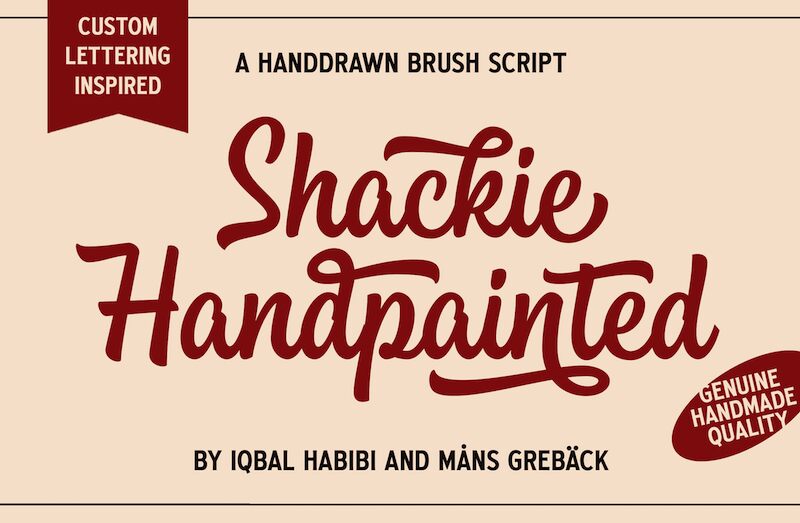
Shackie Handpainted PERSONAL Regular
Shackie Handpainted is a charming handwritten font designed by Mans Greback. Its playful style and imperfect lines give it a warm, welcoming feel that's perfect for projects that need a personal touch. The semi-bold font and wide width make it easy to read, while the handcrafted look adds character and personality. Shackie Handpainted would be great for anything from greeting cards to logos, book covers to social media graphics. Its versatility makes it suitable for both casual and professional projects, adding an authentic touch to any design.
Shackie Handpainted is a striking calligraphy typeface, embodying the charm and flair of a hand-drawn script. The font's dynamic brushstrokes lend it the authentic feel of a sign painter's masterpiece, making it an excellent choice for projects that call for custom lettering and a personal touch.